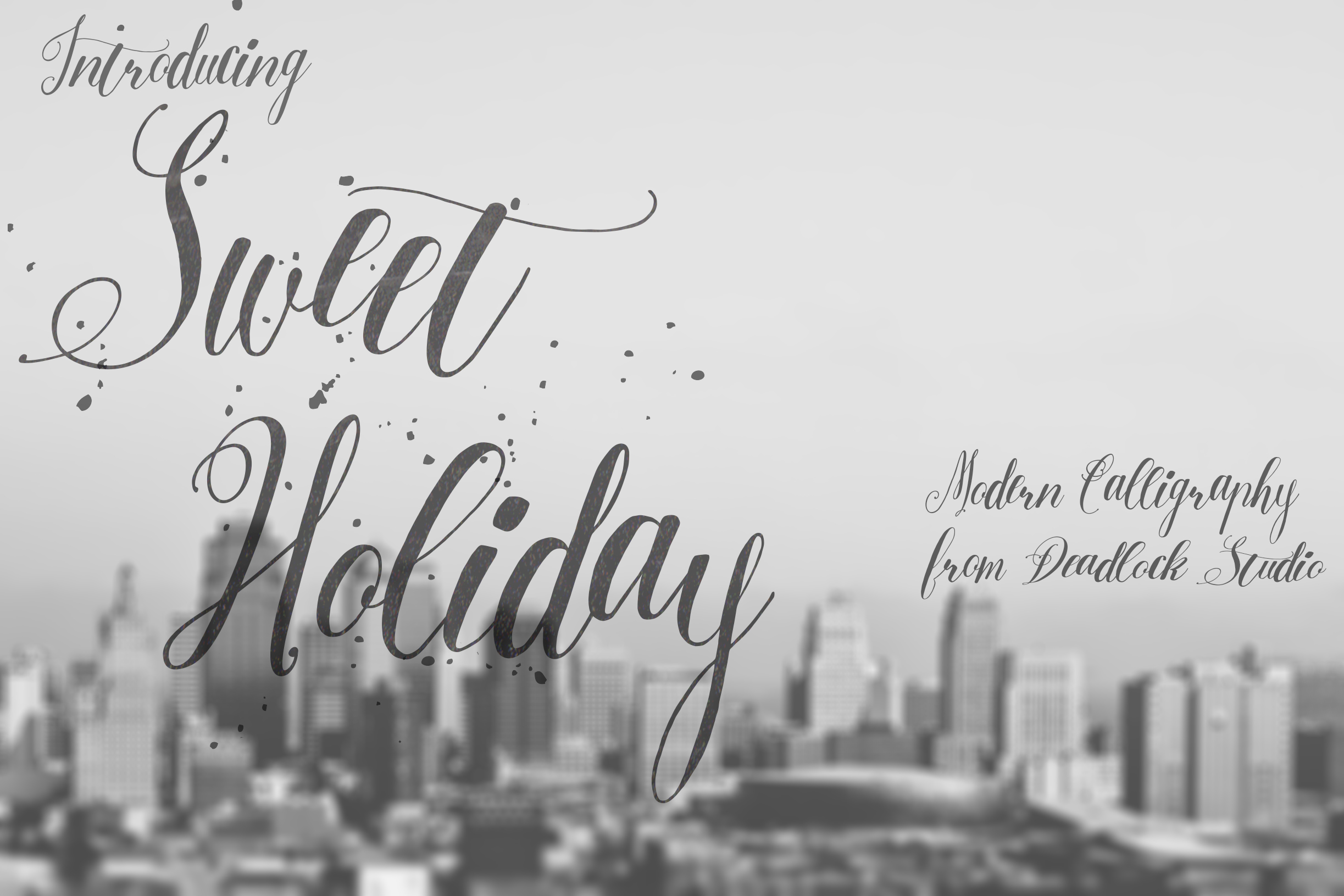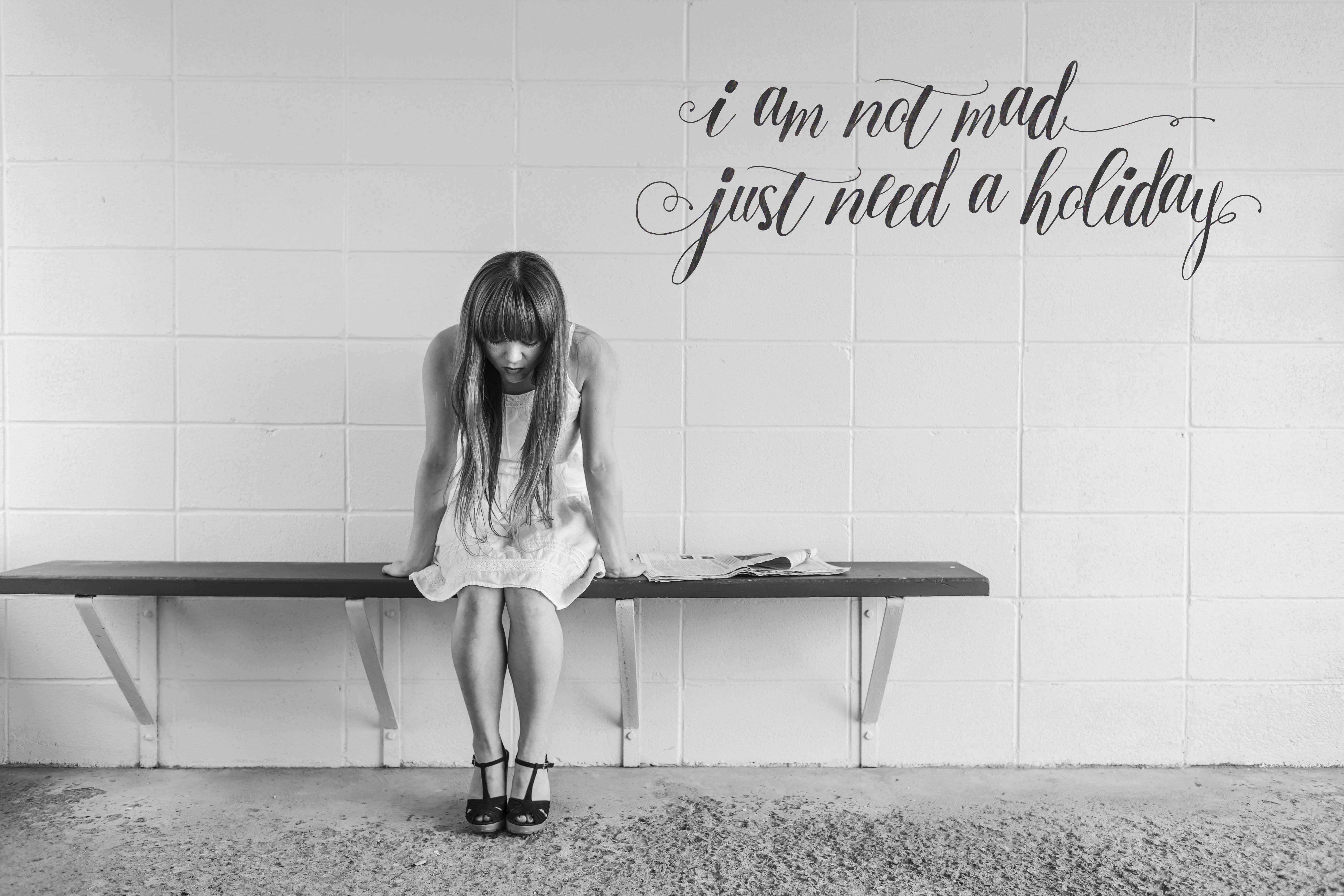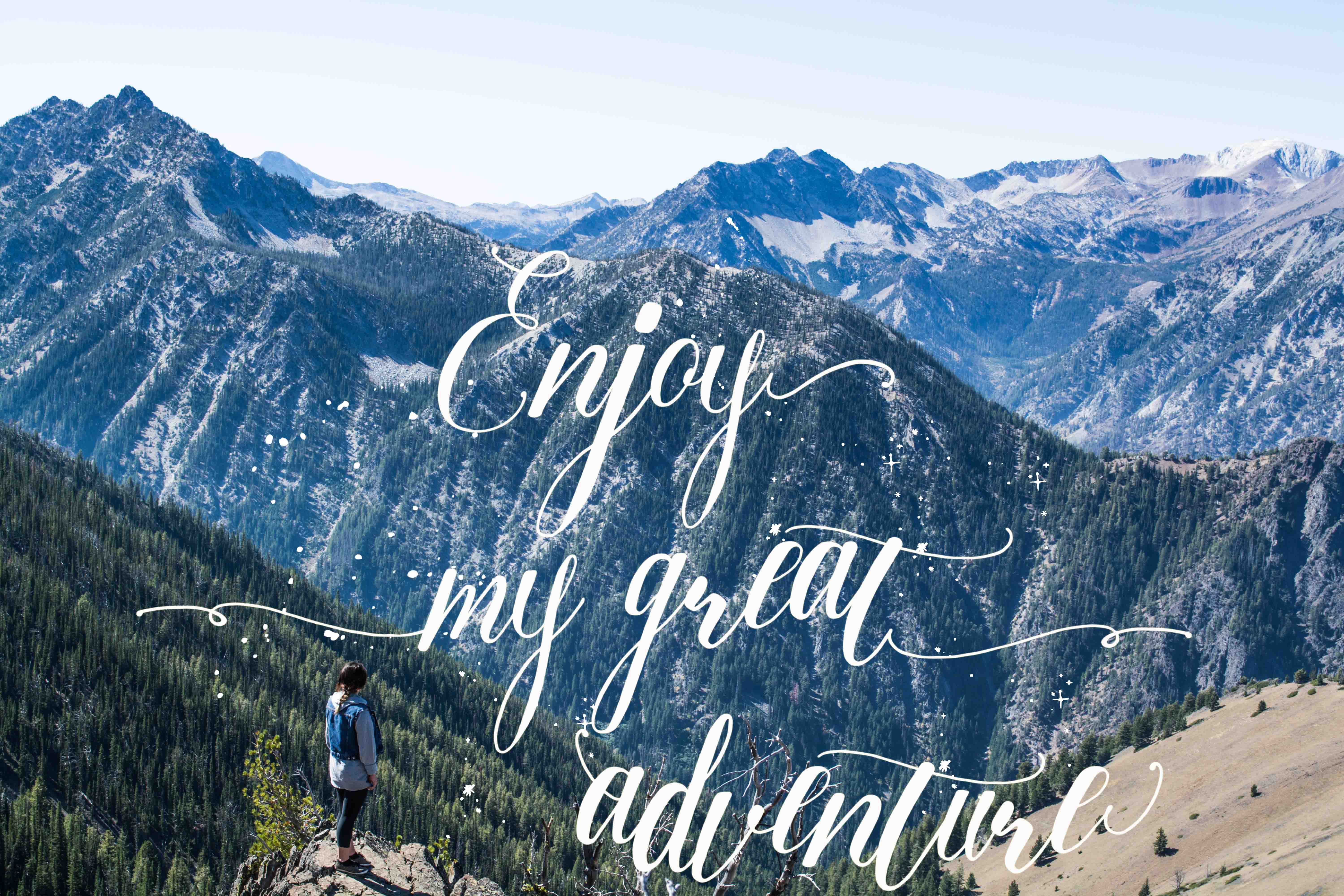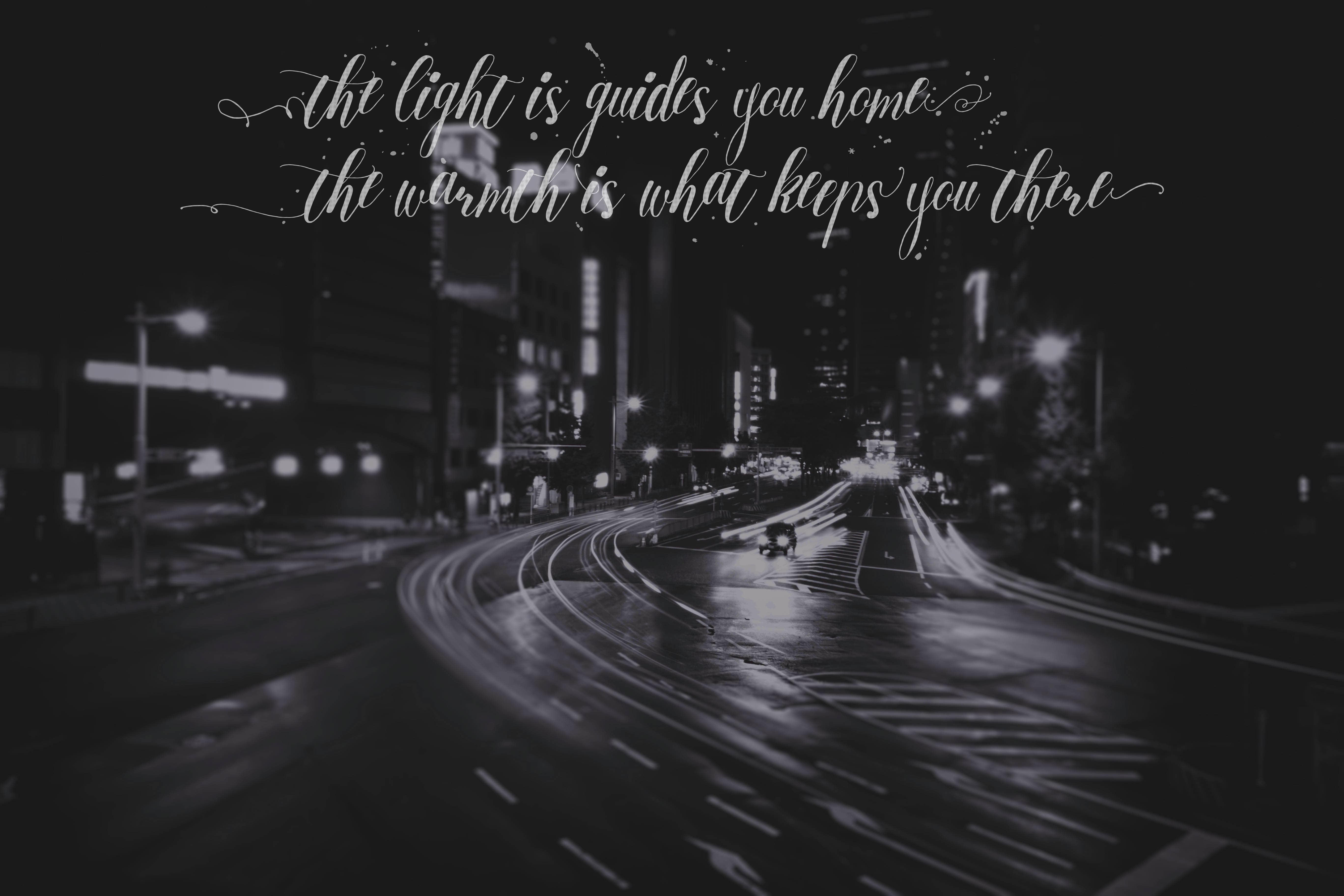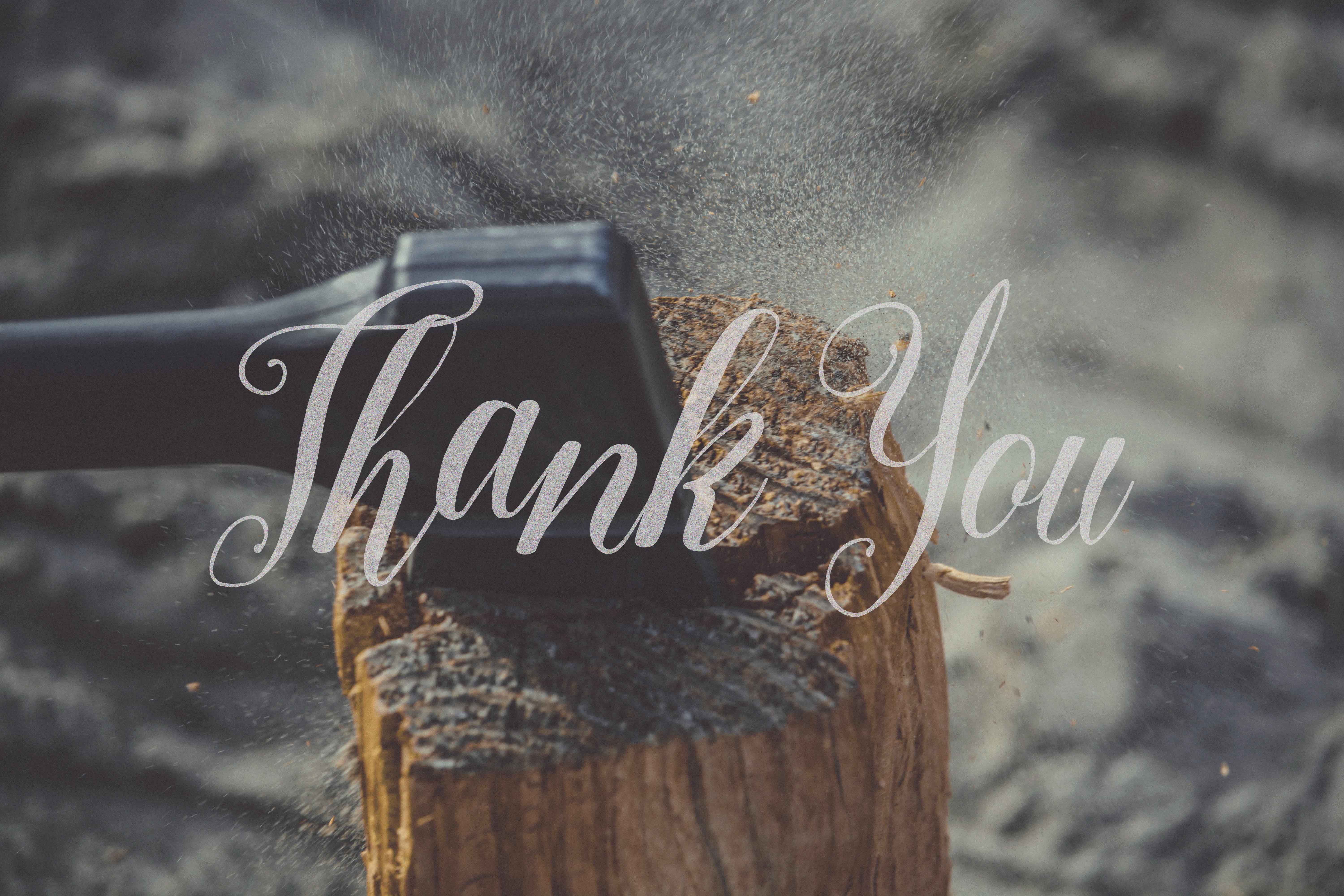
Sweet Holiday (1 font)
From Deadlock Studio
It's getting closer to the end of the year, and it means the holidays are near!!
So, here is Sweet Holiday to make your work more sweet. Sweet Holiday is a modern calligraphy font with an imperfect and irregular baseline. It also has tons of alternates, each character has 12-25 different styles that will help you create something sweeeett :) .. Sweet Holiday is great for logos, wedding invitations, t-shirt designs, posters, greeting cards etc, more sweet :)) ..
Sweet Holiday OpenType features :
Access All Alternates ( aalt )
Ligatures ( liga )
Stylistic Alternate ( sal1-sal5 )
Stylistic Set ( ss01-ss20 )